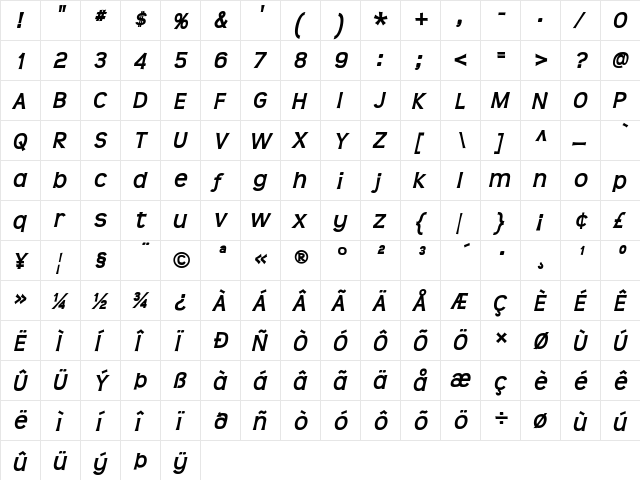
Teen Bold Italic
| Foundry | Martin Archer / Ray Larabie |
| Designer | Ray Larabie & Martin Archer |
Design Context for Teen Typeface
Teen is a composed and adaptable typeface that performs quietly and consistently across a wide range of design contexts. Its italic angle brings a sense of urgency and motion to the letterforms. The heavy weight commands attention and anchors typographic hierarchies.